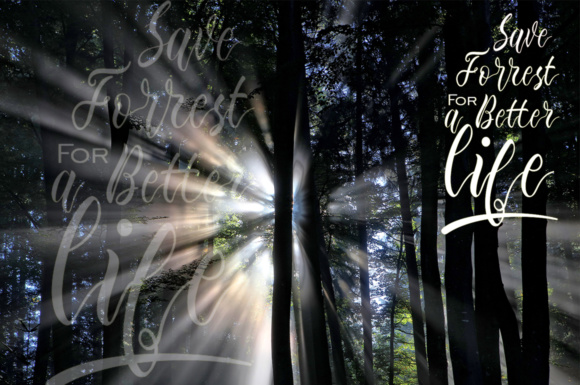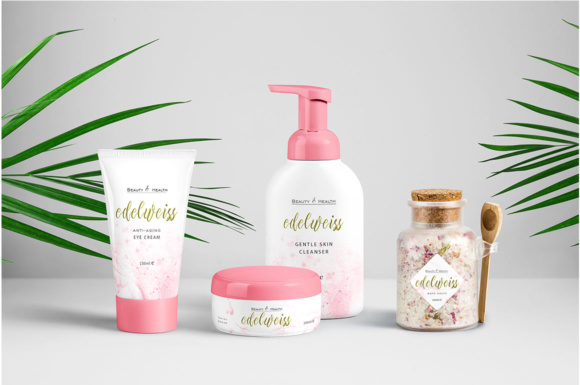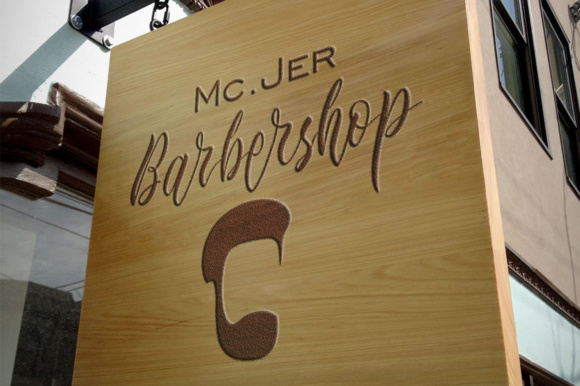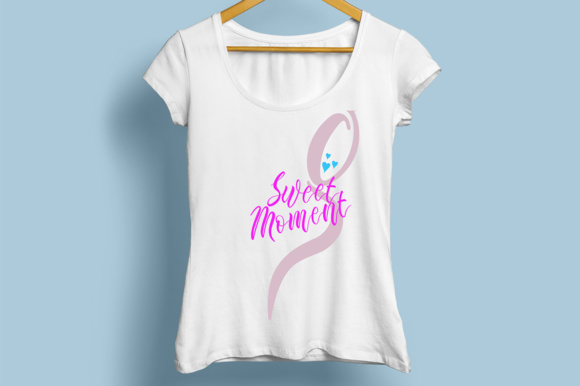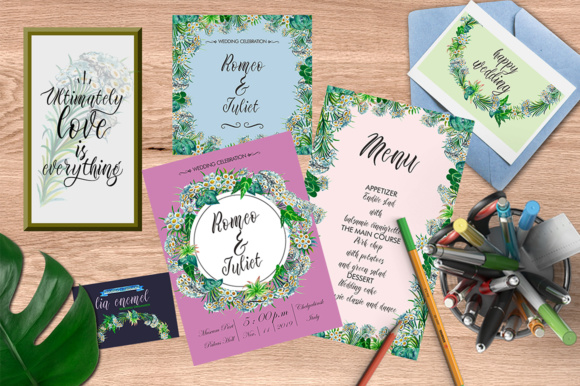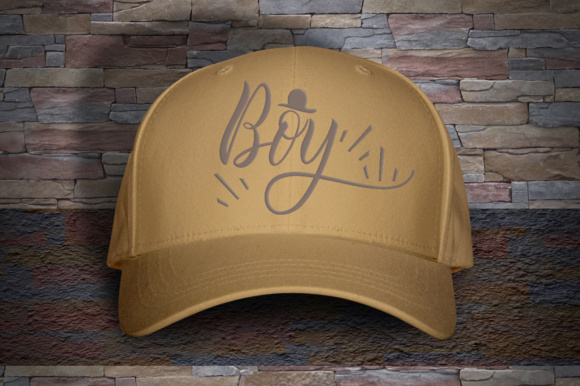
Introducing Edelweiss Font: A Beautiful Calligraphy Font Inspired by Flowers
Are you a designer or crafter looking for a unique and stunning font to add a touch of elegance to your work? Look no further than the Edelweiss Font, a gorgeous calligraphy font inspired by the beautiful Edelweiss flower. In this article, we’ll take a closer look at the Edelweiss Font, its features, and how it can elevate your designs to the next level.
The Edelweiss Flower: A Symbol of Beauty and Elegance
The Edelweiss flower is a stunning alpine flower known for its delicate white petals and yellow center. It’s a symbol of beauty, elegance, and refinement, making it the perfect inspiration for a font. The Edelweiss Font takes the beauty of this flower and translates it into a beautiful calligraphy font that’s perfect for a variety of design projects.
Features of the Edelweiss Font
The Edelweiss Font is more than just a beautiful font – it’s also incredibly versatile and feature-rich. Here are just a few of the amazing features that make this font a must-have for designers and crafters:
- Tons of Glyphs: The Edelweiss Font comes with tons of glyphs, including uppercase and lowercase letters, numbers, and punctuation marks. This means you can create stunning text-based designs that are both elegant and sophisticated.
- Beautiful Calligraphy: The Edelweiss Font features beautiful calligraphy that’s reminiscent of handwritten script. This makes it perfect for designs that require a personal touch, such as wedding invitations, greeting cards, and more.
- High-Quality Design: The Edelweiss Font is designed with high-quality in mind. The font is crisp and clear, making it perfect for both digital and print designs.
Uses for the Edelweiss Font
The Edelweiss Font is incredibly versatile and can be used for a wide range of design projects. Here are just a few ideas to get you started:
- Wedding Invitations: The Edelweiss Font is perfect for wedding invitations, adding a touch of elegance and sophistication to your designs.
- Greeting Cards: Create beautiful greeting cards for special occasions, such as birthdays, anniversaries, and more.
- Logos and Branding: The Edelweiss Font can be used to create stunning logos and branding materials that are both elegant and memorable.
- Social Media Graphics: Add a touch of elegance to your social media graphics, such as Facebook posts, Instagram stories, and more.
Tips for Using the Edelweiss Font
Here are a few tips for using the Edelweiss Font in your designs:
- Experiment with Colors: The Edelweiss Font looks stunning in a variety of colors, from soft pastels to bold and bright hues. Experiment with different colors to find the perfect look for your design.
- Pair with Other Fonts: The Edelweiss Font can be paired with other fonts to create a unique and interesting look. Try pairing it with a bold sans-serif font for a striking contrast.
- Use for Headings and Titles: The Edelweiss Font is perfect for headings and titles, adding a touch of elegance and sophistication to your designs.
The Edelweiss Font is a beautiful calligraphy font inspired by the stunning Edelweiss flower. With its tons of glyphs, beautiful calligraphy, and high-quality design, it’s the perfect addition to any design project. Whether you’re a designer or crafter, the Edelweiss Font is sure to elevate your designs to the next level. So why wait? Download the Edelweiss Font today and start creating stunning designs that are both elegant and sophisticated.